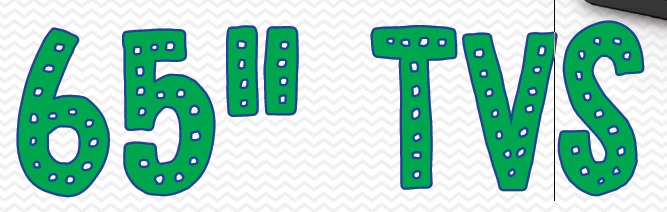
How to fill in a hollow font without adding a stroke. Jealous Punk Dot
I purchased the font Jealous Punk Dot, thinking I could quickly fill the interior dots with a contrasting color to the primary letter of the font. For example, a pic online shows the font in white, with the dots inside being blue. I assumed I'd only need to click the stroke button, and the inside dots would fill. However, when I hit the stroke button, it adds a stroke around the entire font and inside the dots- as it should. I don't have to convert the font to outlines and fill in each dot, right? What would be the point of that? I'm stumped. It's like the font has two main colors. Help!
Edges of the "dots" inside are the same as edges "outside" - so you can't fill them with color - they are cutouts in the glyphs.
It's rather someone created misleading preview.
If you need to work with live text - it will be quite "complicated" to achieve what you are looking for.
But if you can outline your text - then you could use Pathfinder:
to remove them quickly from the copy, then place this copy underneath the original and then fill it with color.
I think the preview is also misleading. Every image of that font is shown without the stroke, which is why I liked it! Ugh! I appreciate the help. I've been thinking I'm missing an obvious step.
It's splitting hairs, but the example — CARS — seems to have a light blue stroke, and then the dots are filled in by underlying color or by converting to outlines. But I'll say I've never seen a font that had such elements that could be filled without one workaround or the other; font glyphs are self-contained, closed paths, not "art images" — unless you convert them to such.